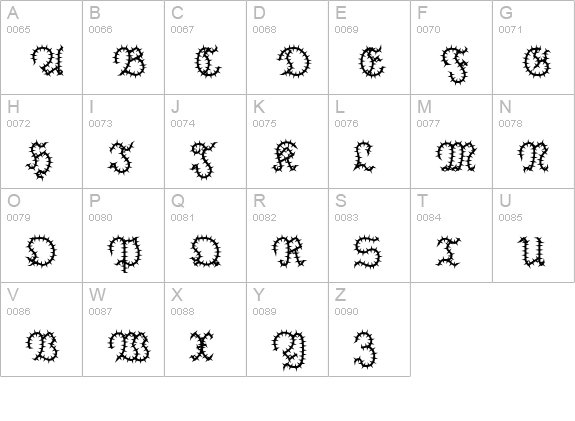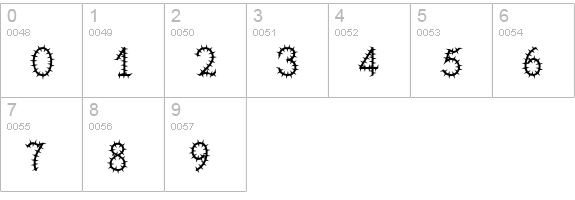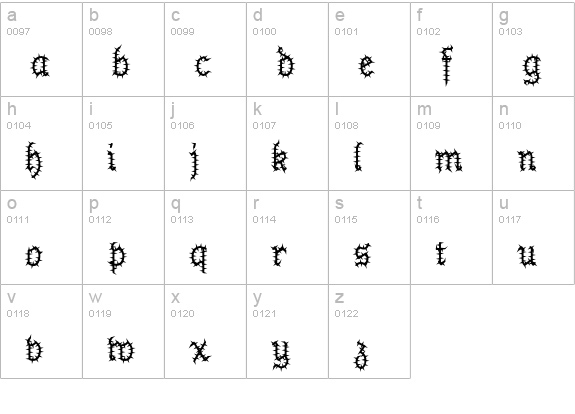
PhrackCack Font Details
Introducing PhrackCack, a captivating and dynamic font that effortlessly combines sleek modernity with an edgy, rebellious feel. This font is perfect for those who seek to make a bold statement and leave a lasting impression. PhrackCack is a free font that exudes a sense of raw energy and creativity. Its unique and intricate letterforms are meticulously crafted to command attention and engage the viewer. With its sharp angles and distinctive curves, PhrackCack adds a touch of originality and sophistication to any design project. Whether you are working on a logo, a poster, a website, or any other creative endeavor, PhrackCack is sure to elevate your work to new heights. Its versatility allows it to be used in a variety of contexts, from modern and futuristic designs to gritty and urban aesthetics. What sets PhrackCack apart is not only its striking appearance, but also its availability. This exceptional font is freely available to download at FontsMarket.com, a reputable platform that offers a wide range of high-quality fonts. You can effortlessly obtain PhrackCack and unleash your creativity without any cost or hassle. Download PhrackCack today and experience the freedom of expression it brings to your design projects. Embrace its powerful presence, and let it become the driving force behind your next masterpiece. With PhrackCack, the possibilities are endless, and your designs will never be the same again.